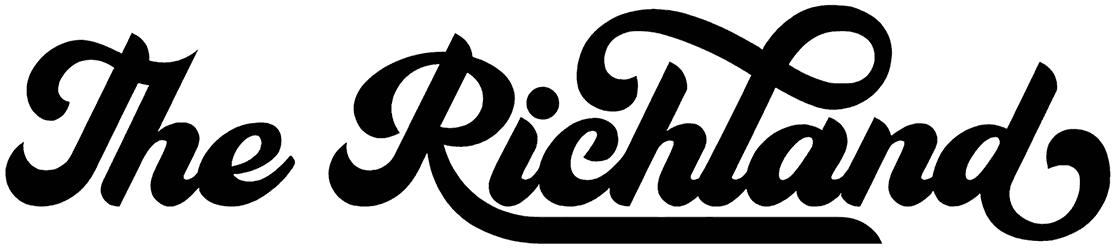
The Richland Font
Bring all those nostalgic vibes of the old days to your upcoming project only by The Richland. It is a bold retro font with a fabulous and impeccable style that improves your design skills, no matter how professional you…
Bring all those nostalgic vibes of the old days to your upcoming project only by The Richland. It is a bold retro font with a fabulous and impeccable style that improves your design skills, no matter how professional you are. This baseball font is a perfect choice for T-shirt prints, product packaging, book covers, logotypes, and other works that need a vintage look.